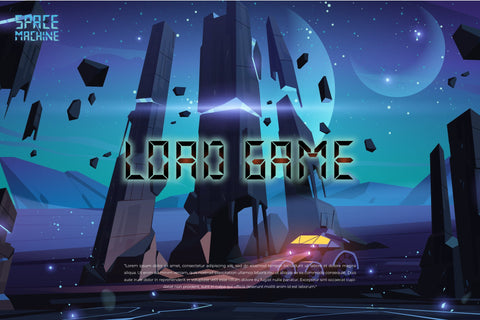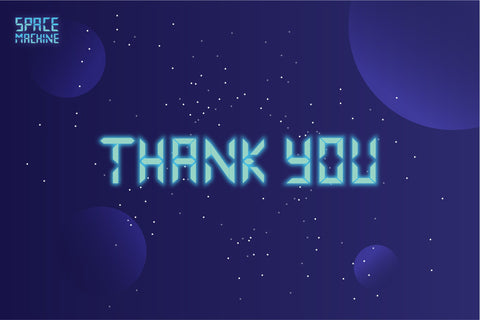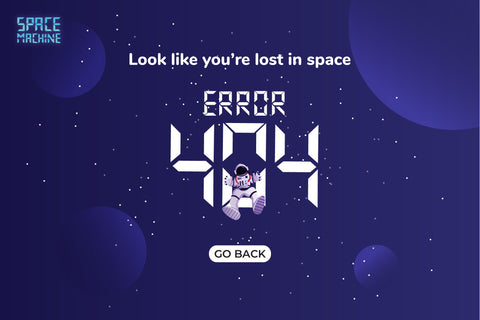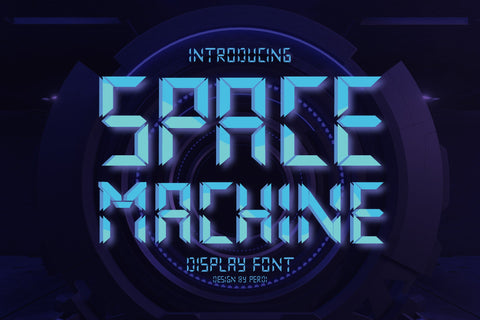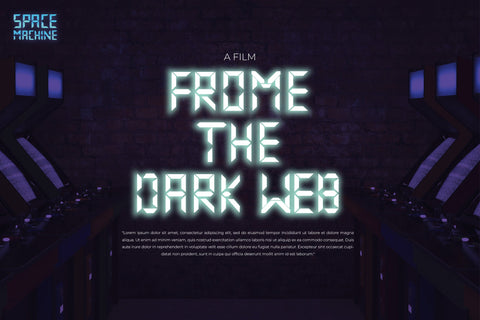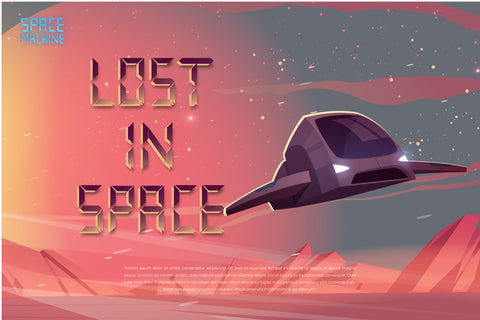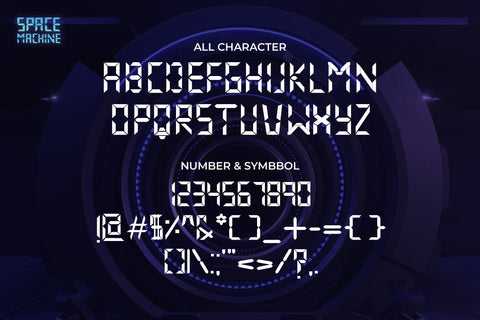
Space Machine Display Font
Space Machine Display Font is a design font with a robot style that can enhance the quality of your designs.
Space Machine Display Font – This Font is perfect for designs, logos, social media, brands, advertisements, product designs, handwritten quotes, product packaging, headers, posters, merchandise, and other designs.